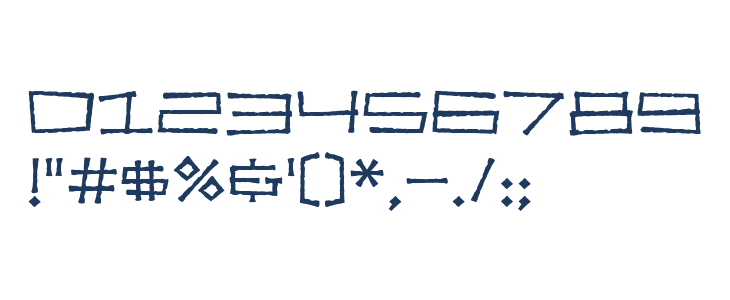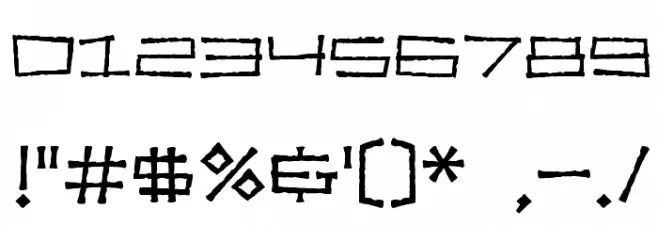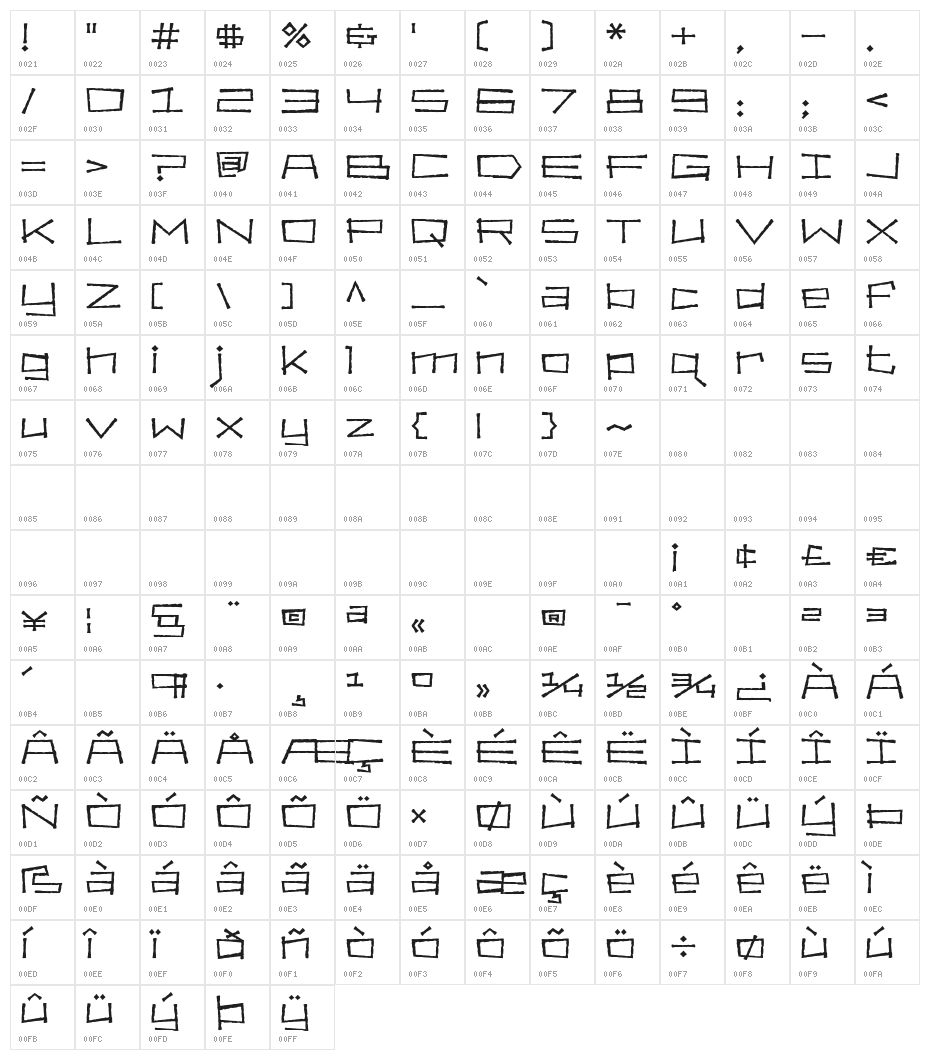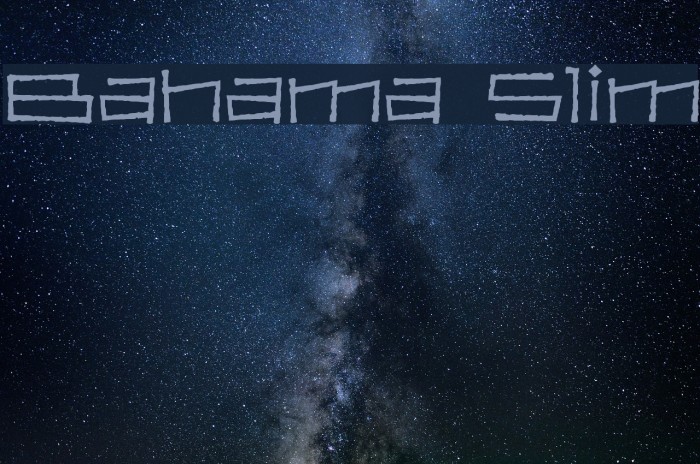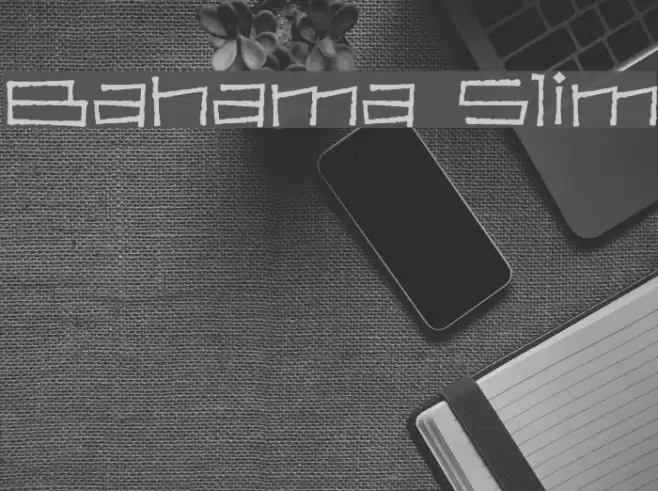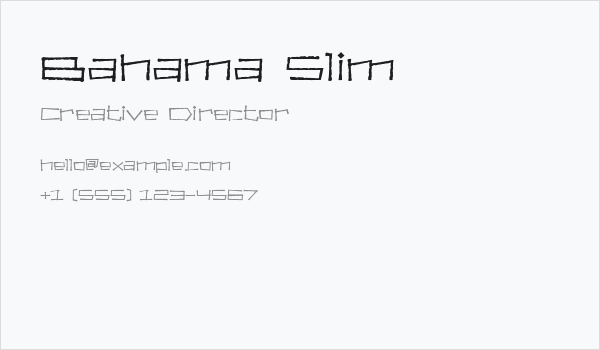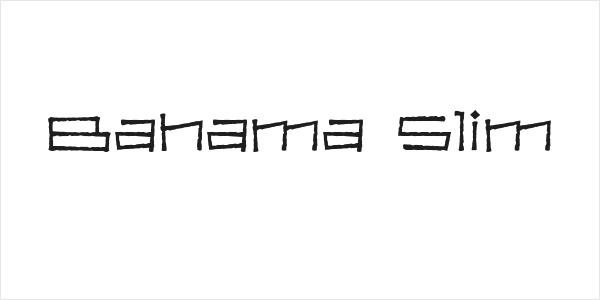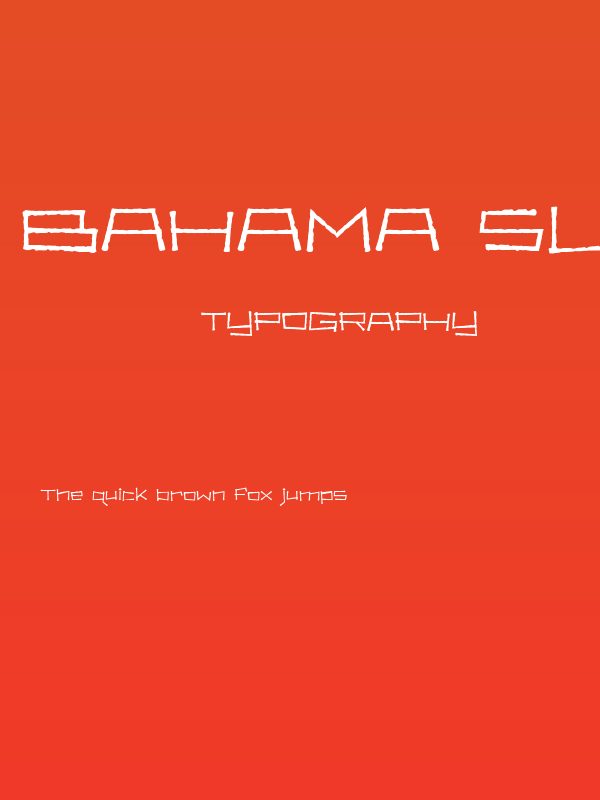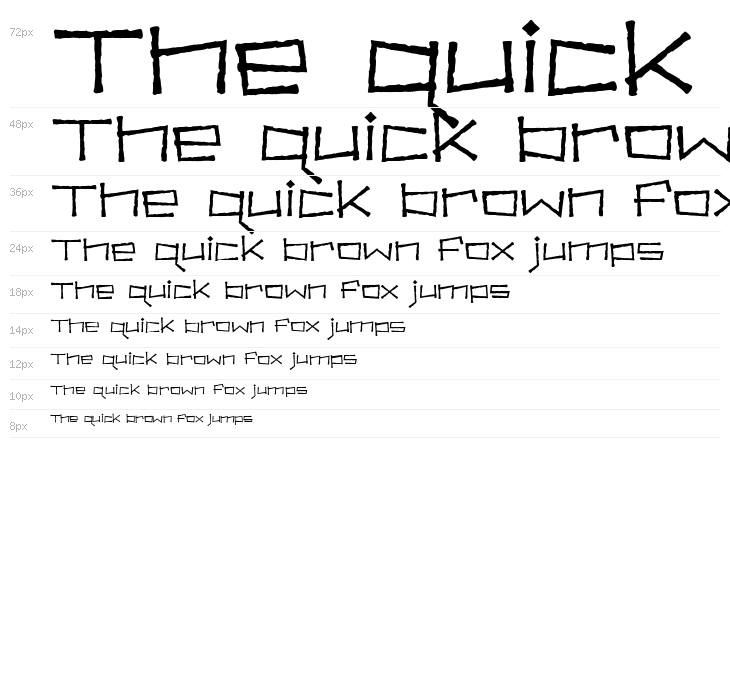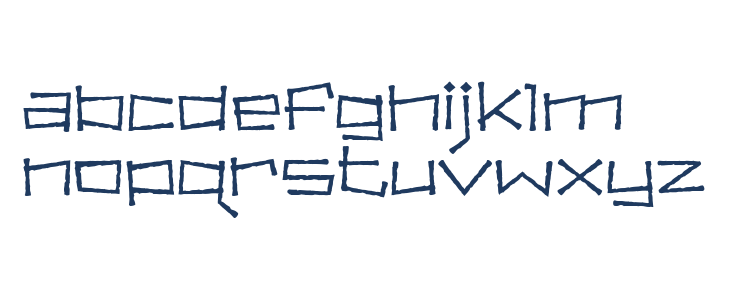
Bahama Slim Font
Bahama Slim Description
This font features a unique, hand-drawn style with a rough, textured appearance that gives it a casual and artistic feel. The characters are slightly irregular, adding to the handcrafted aesthetic. The uppercase and lowercase letters maintain a consistent height, while the numbers and special characters follow the same design principles. The strokes are uneven, contributing to a dynamic and lively look. This font is ideal for projects that require a personal touch or an informal vibe, such as creative invitations, posters, or artistic branding.
| Proposed Projects | Ideal for creative invitations, artistic posters, and informal branding projects. |